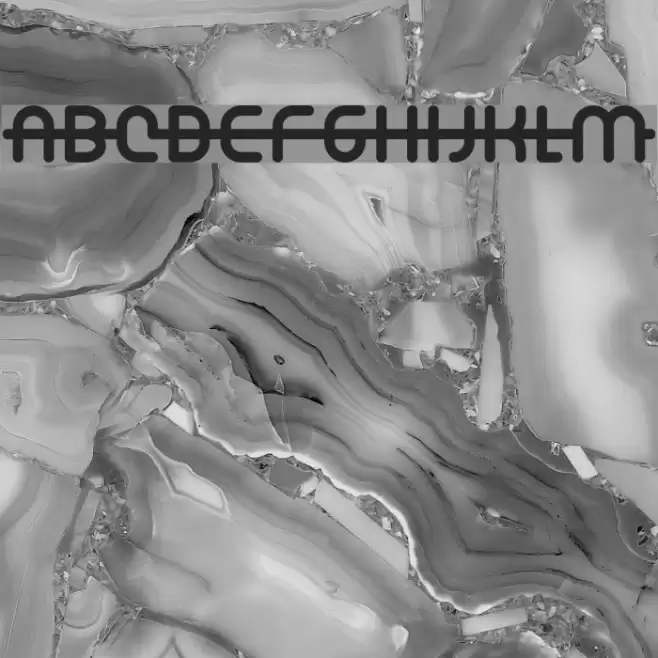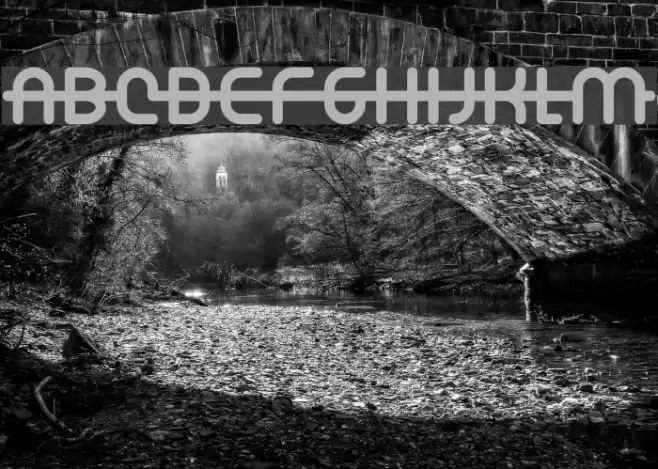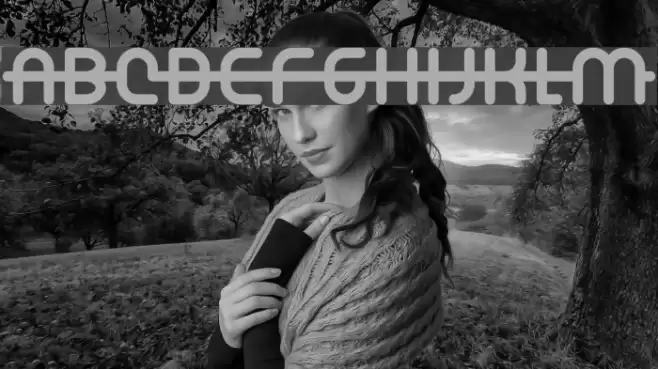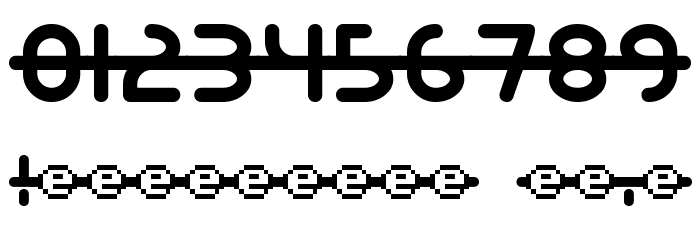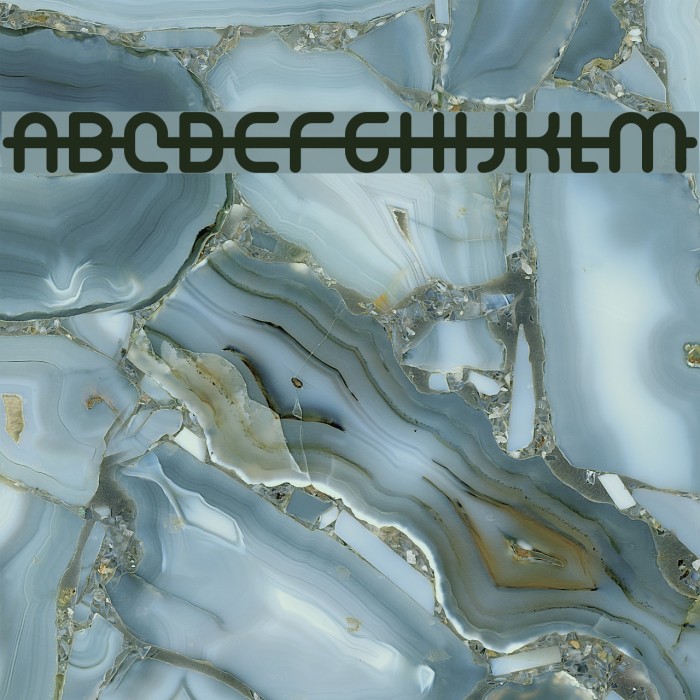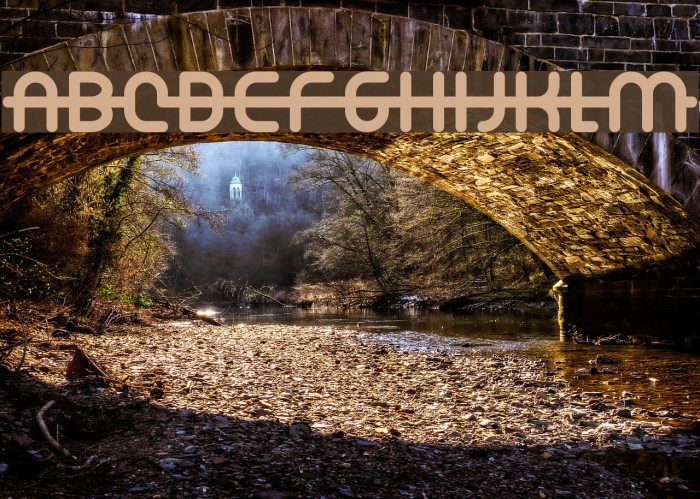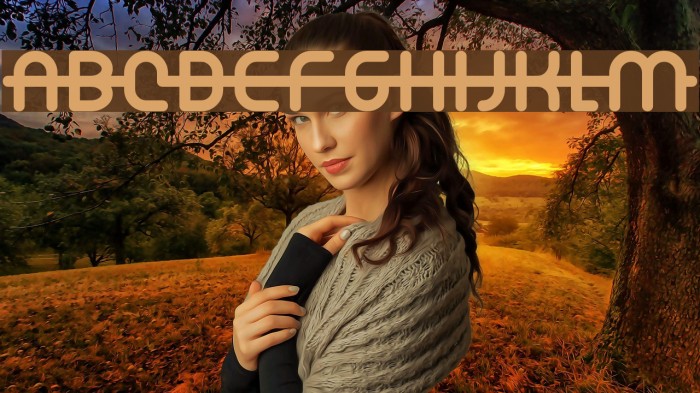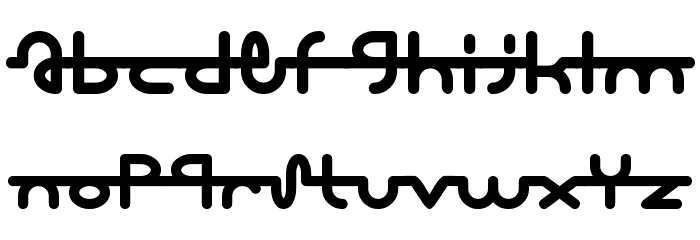
A.Lewis Font
A.Lewis Description
This font features a unique, playful design with a continuous horizontal line running through the center of each character, creating a striking visual effect. The characters are rounded and bold, with a consistent thickness throughout, giving them a modern and cohesive appearance. The line adds a decorative element that makes the font stand out, while the rounded edges provide a friendly and approachable feel. This font is ideal for creative projects that require a distinctive and eye-catching typeface.
A bold, rounded font with a central horizontal line for a playful, modern look from Futuristic fonts.
- Proposed Projects: Ideal for branding, posters, and creative digital designs where a unique and playful typeface is desired.